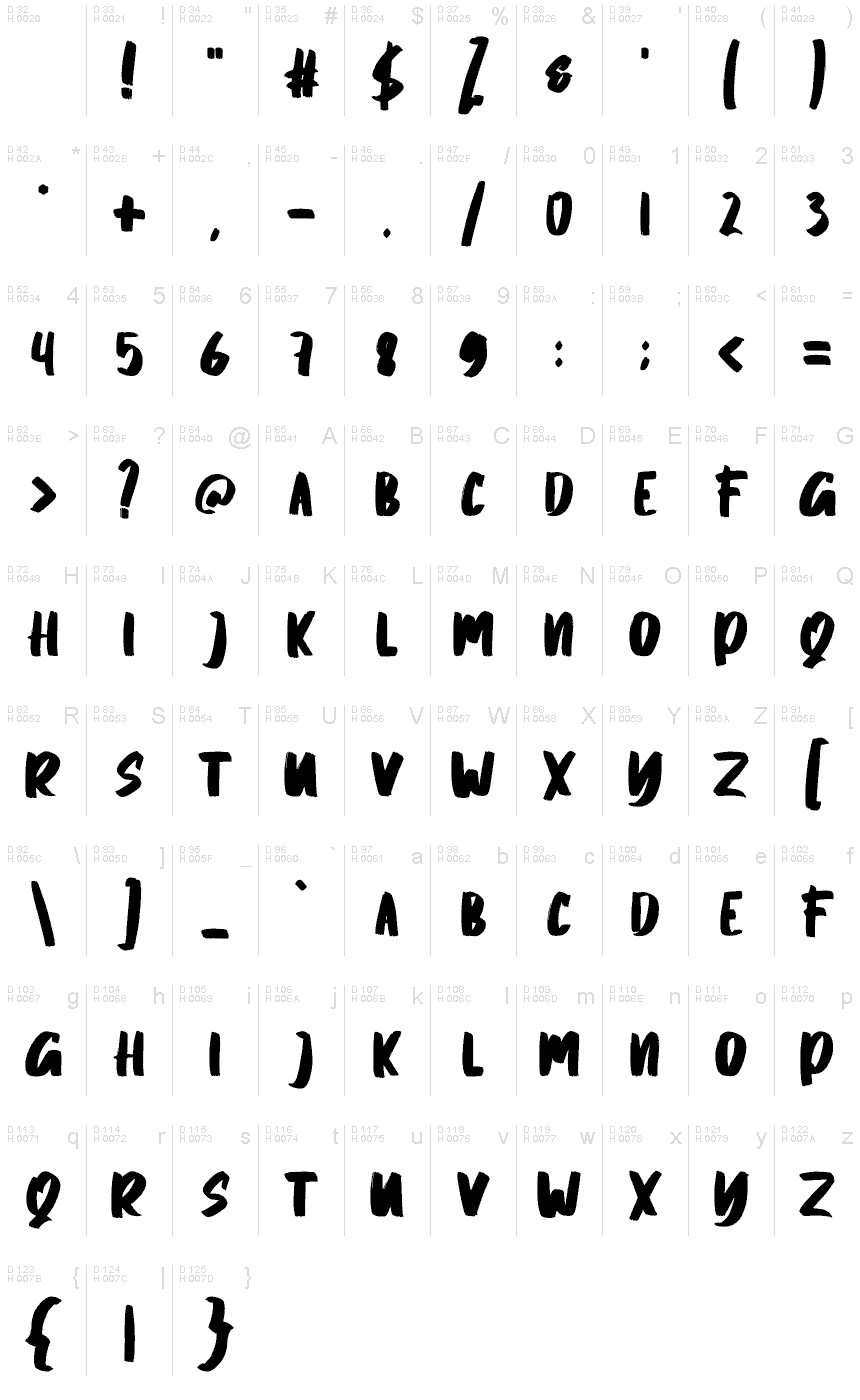
Fourier
Fourier font by Skiiller Studio is a bold smooth brush typeface full of life, energy, and creativity. The expressive character of this free handwritten font can be used to give a personal touch to professional or learner designers’ art pieces. Its casual modern aesthetic will immediately capture the reader’s attention in any platform or medium.
This playful font is perfect for arts projects like animated titles and posters which means you can use it in children books and any entertainment project that revolves around families. Have fun using it in your daily Instagram quotes, Facebook stories, Pinterest images, YouTube thumbnails, blog headers etc. Business cards for unconventional brands like beauty salons are possible as well alongside custom t-shirt designs and greeting card messages.